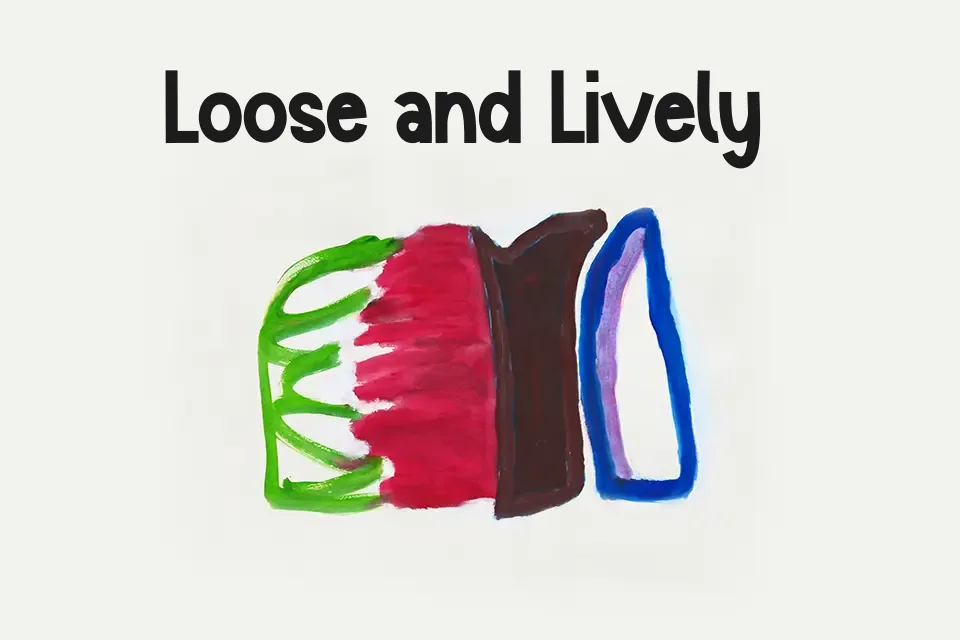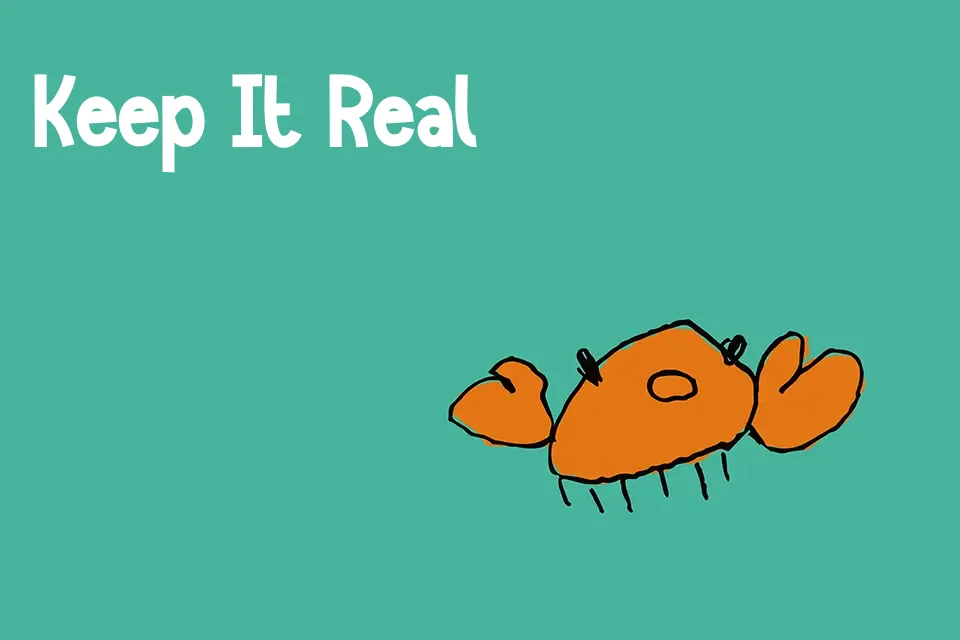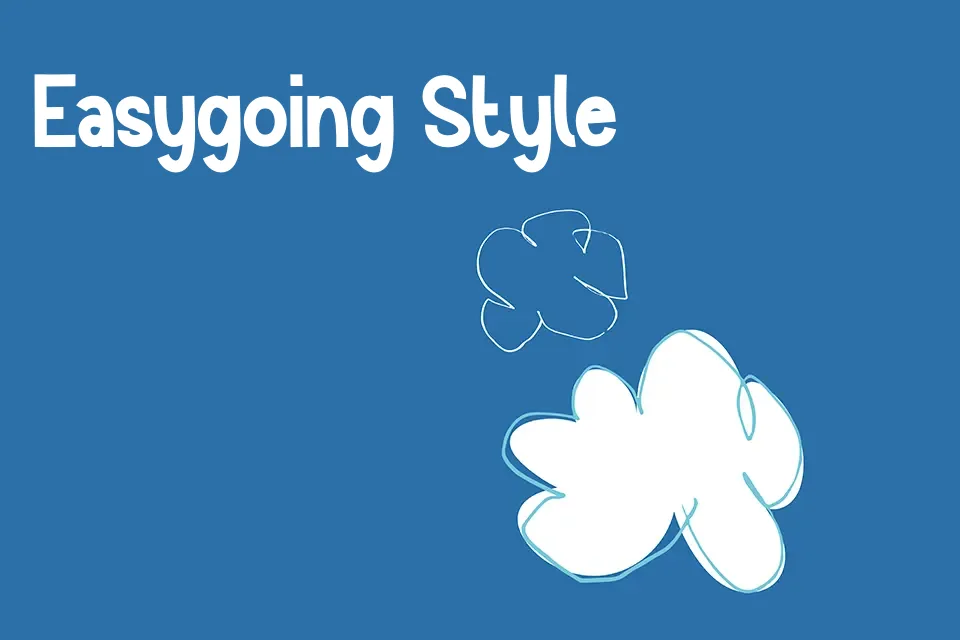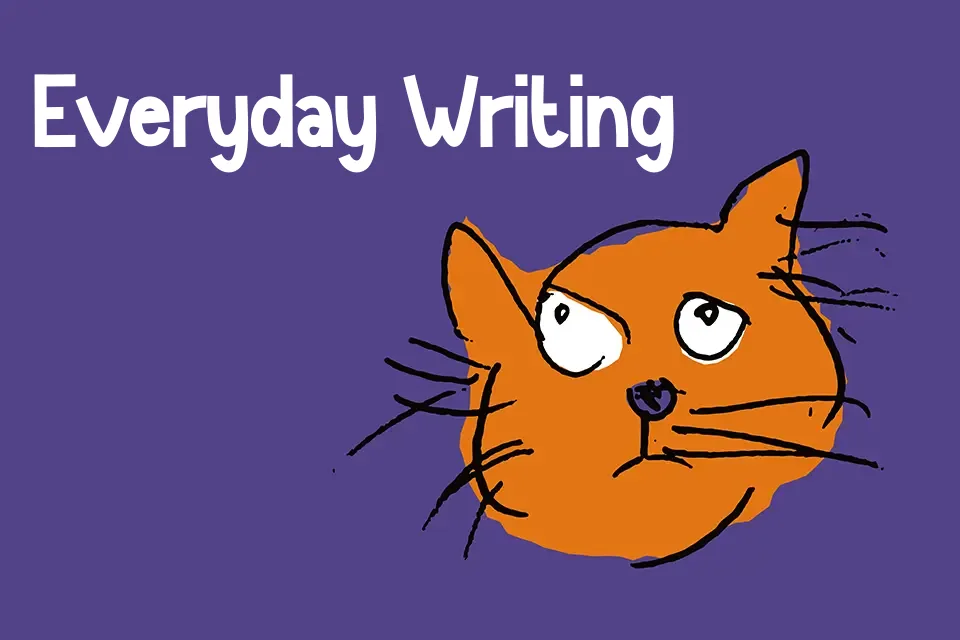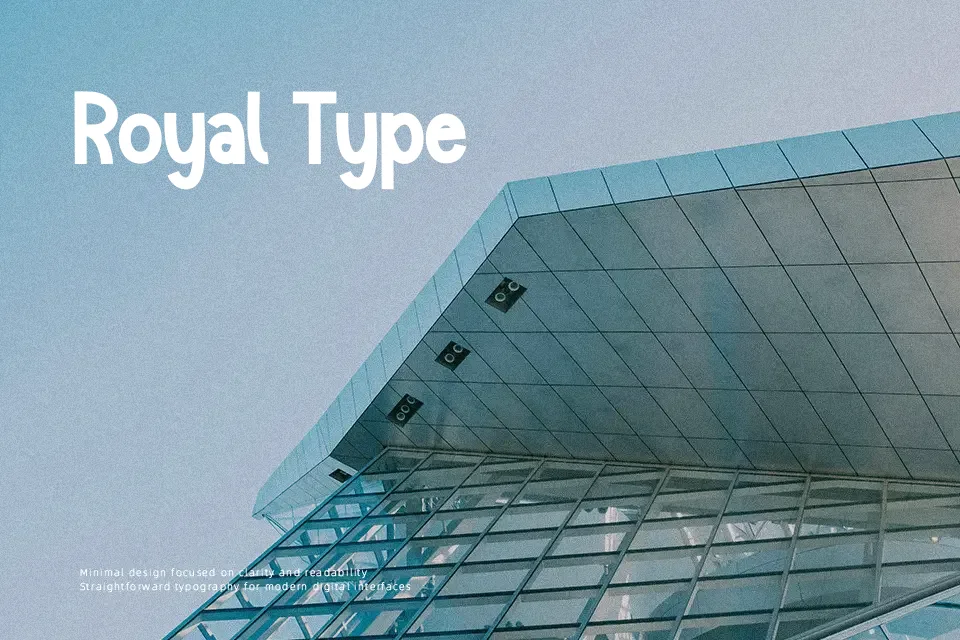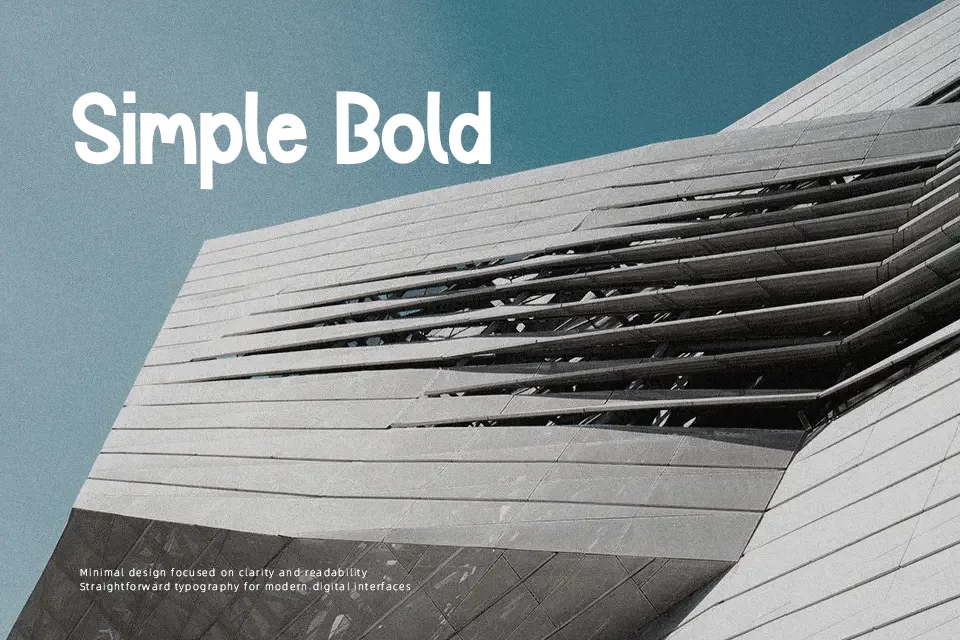
Baby Mockup Font
Baby Mockup opens with loose, rounded strokes and a handwritten structure that feels like a neat, friendly doodle rather than a rigid typeface. Letters sit with slightly bouncy spacing, giving headlines and short phrases a light, playful rhythm that fits baby announcements, nursery prints, and kids’ party invitations. The overall style leans casual and decorative, so it shines when used as a display accent rather than as a workhorse family. It holds up well on posters or social media graphics where only a few words need to stand out, but loses comfort in dense paragraphs or highly formal layouts. When you treat it as a charming highlight instead of a universal solution, it does its job pleasantly.
baby shower invitation titles
kids birthday party posters
nursery wall art quotes
formal corporate presentations
small-size body copy
Perfect for kids, logo, and poster, with a cute and decorative style.